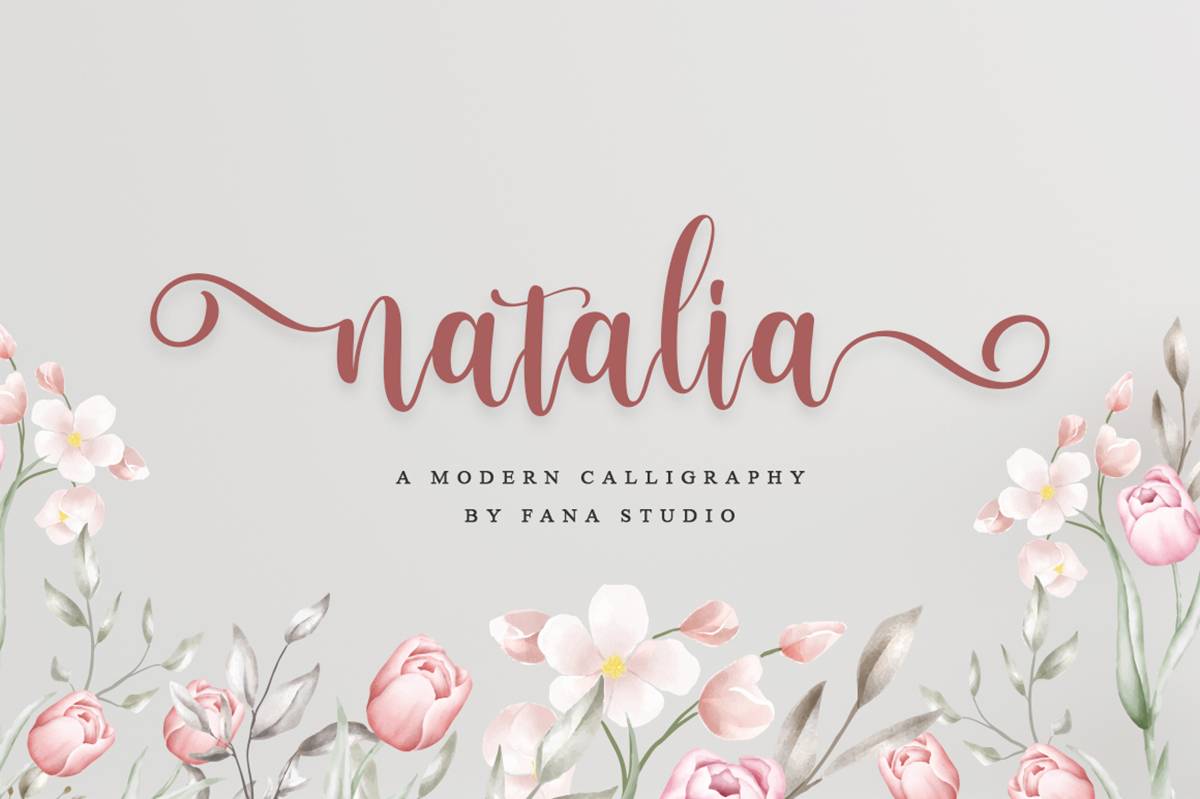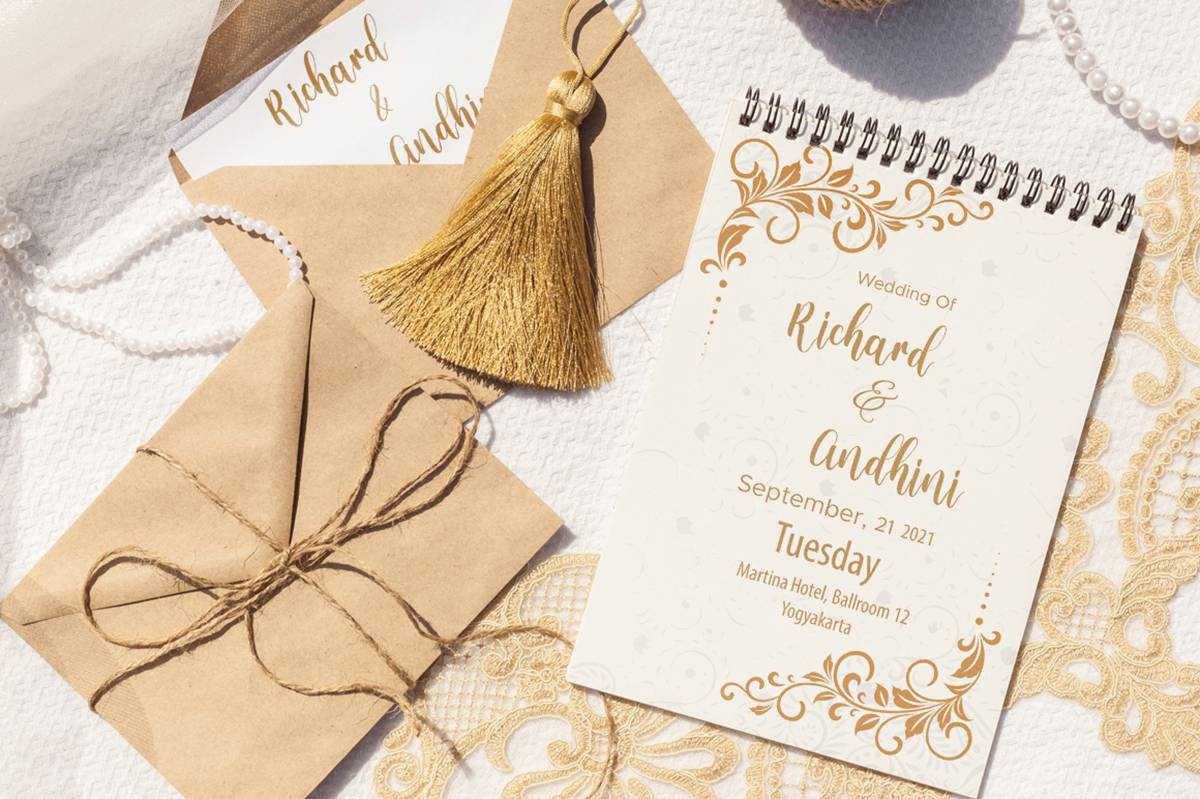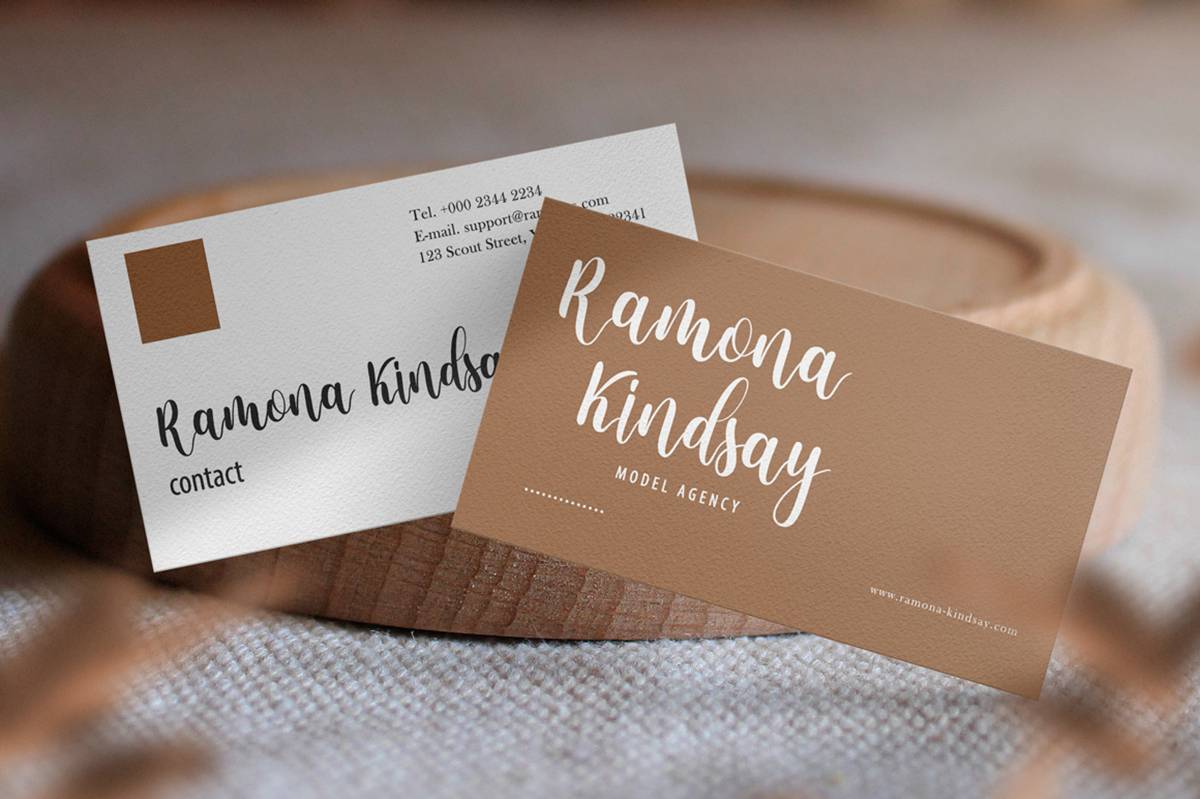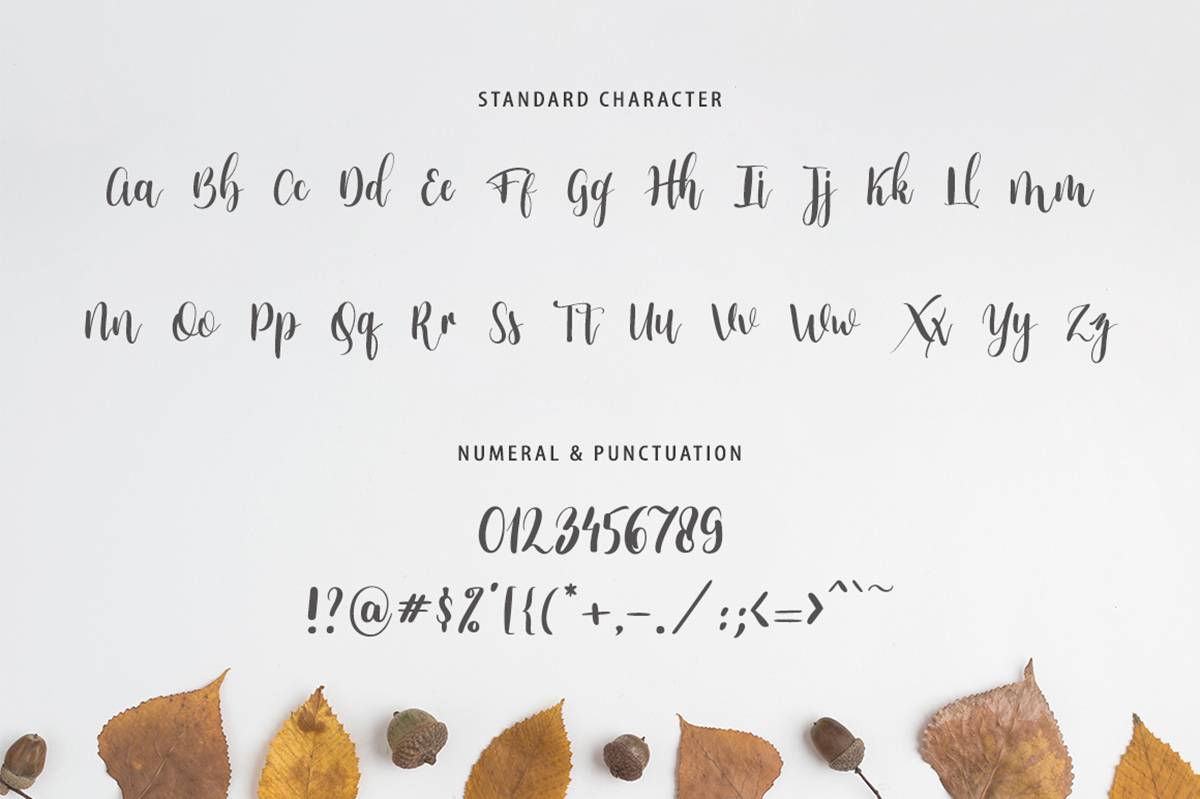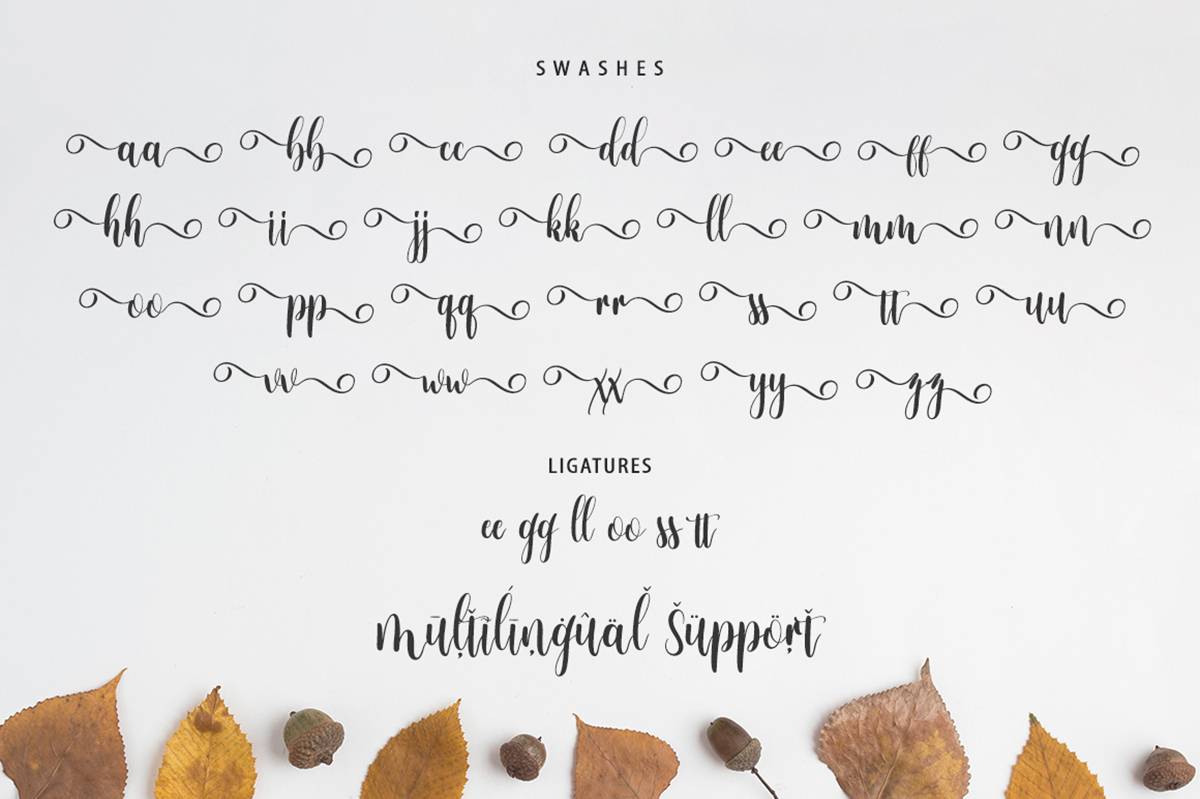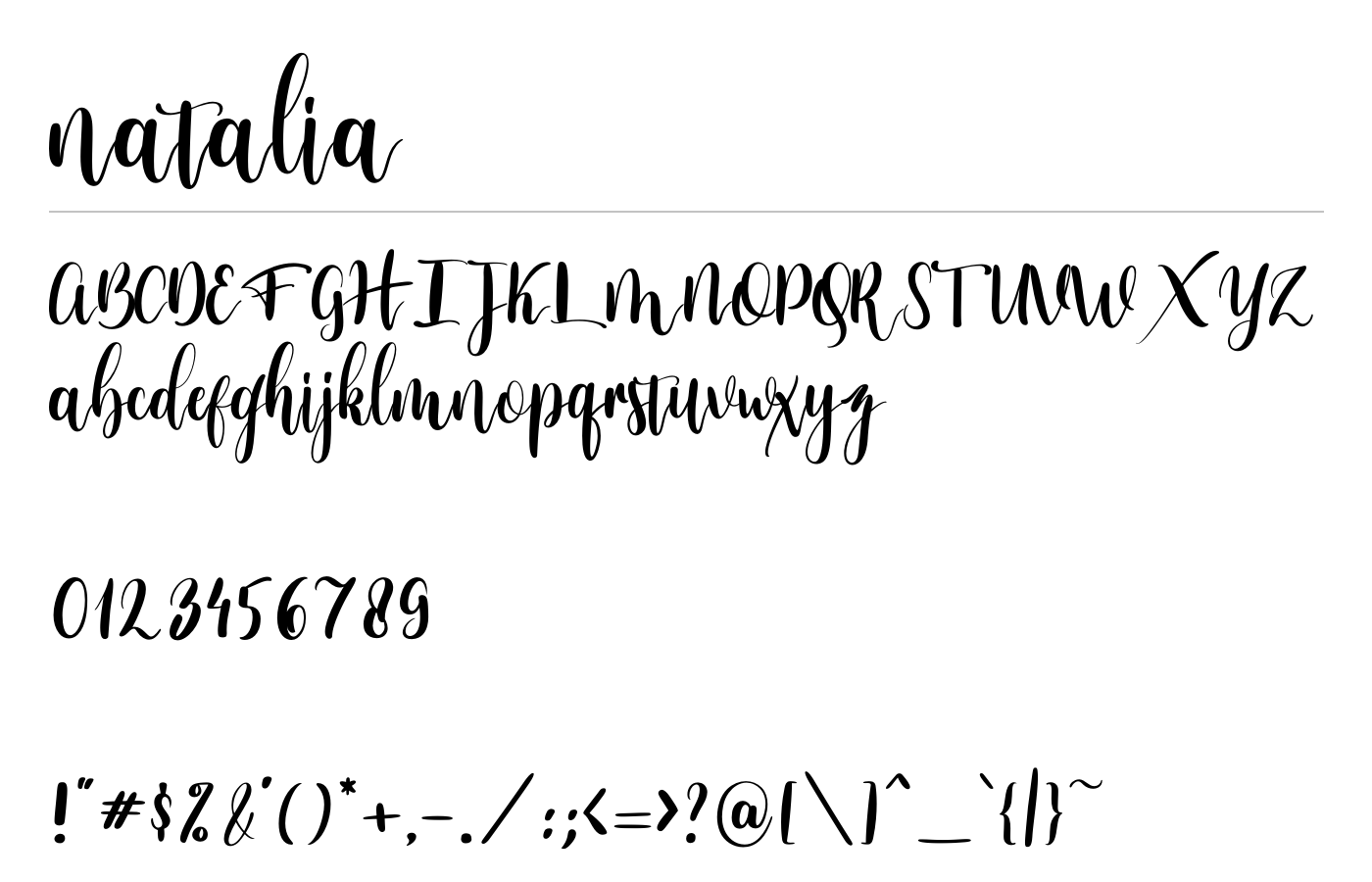
Natalia Script Font is a flowing, elegant script typeface with a lively, hand-lettered feel, featuring smooth, rounded strokes and a moderate contrast between thick and thin lines. Its upright, playful letterforms and decorative swashes make it perfect for creative branding, wedding invitations, and stylish headlines, conveying warmth and sophistication with a modern twist. This font shines best in projects seeking a personal, feminine touch with a contemporary flair.
Natalia Script Font
About Natalia Script Font
| Font family | Natalia Script Font |
| Designer | Novia Himatunnisa |